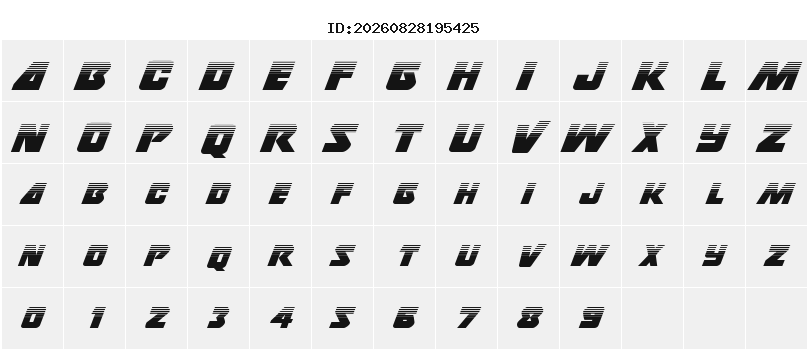
Thunderstrike Halftone Preview
• Font Name: Thunderstrike Halftone
• Full Font Name: Thunderstrike Halftone
About Thunderstrike Halftone.ttf
Thunderstrike Halftone.ttf is a modern, elegant sans-serif font designed for ultimate readability and visual harmony. Perfect for branding, headlines, web design, and print materials.